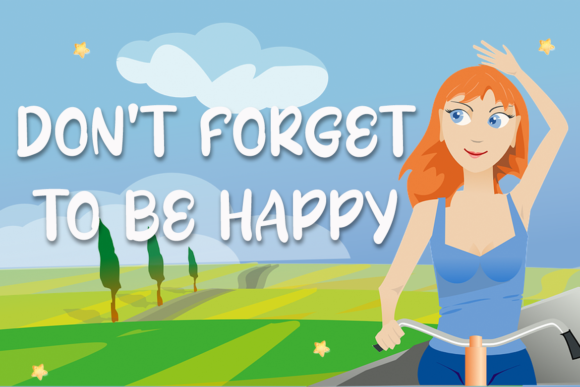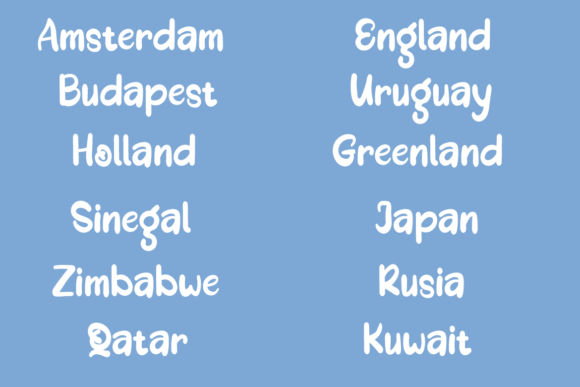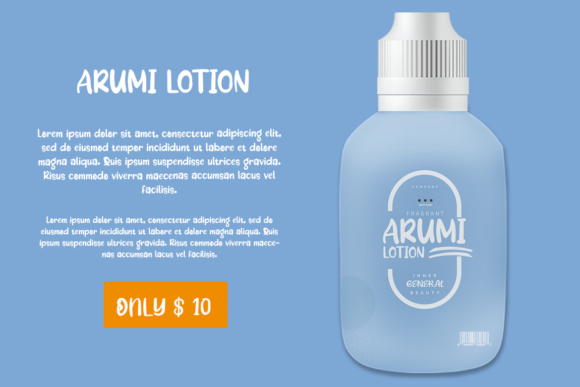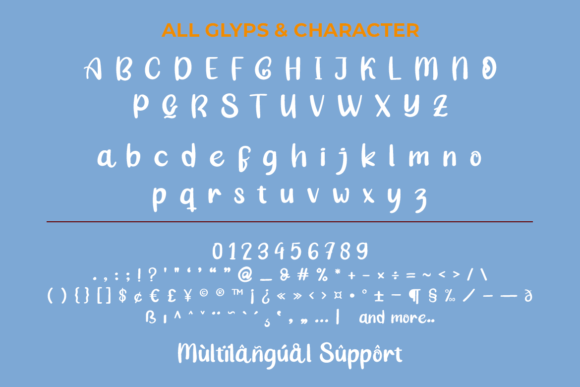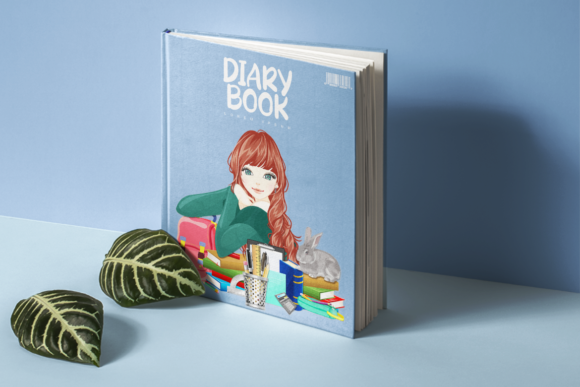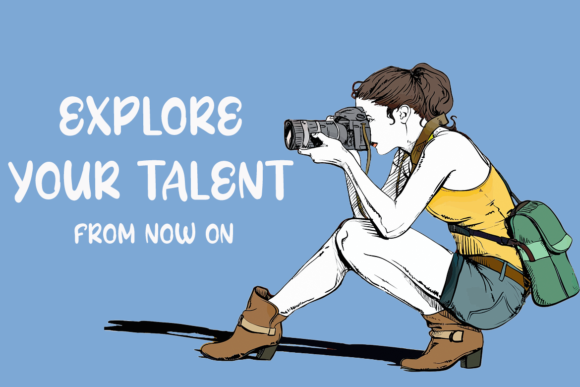
Introducing Arumi Font: The Sweet yet Bold Display Font for Creative Designs
Are you tired of using the same old fonts for your designs? Look no further than Arumi Font, a sweet yet bold display font that’s sure to make your creations stand out. With its natural and quirky style, Arumi is incredibly fitting for a wide range of designs, from playful crafts to bold branding statements.
The Unique Characteristics of Arumi Font
Arumi Font is a display font that exudes a sense of playfulness and charm. Its bold and rounded letters make it perfect for headlines, titles, and other design elements that need to grab attention. The font’s natural and quirky style gives it a unique personality that’s both fun and sophisticated.
One of the key features of Arumi Font is its versatility. It can be used for a wide range of designs, from children’s party invitations to branding materials for businesses. The font’s bold and playful style makes it perfect for designs that need to stand out, while its natural and quirky style gives it a touch of elegance and sophistication.
Why Designers and Crafters Love Arumi Font
Designers and crafters love Arumi Font for its unique combination of sweetness and boldness. The font’s playful style makes it perfect for designs that need to appeal to a younger audience, while its sophisticated style makes it suitable for more mature designs.
How to Use Arumi Font in Your Designs
Arumi Font is incredibly versatile and can be used in a wide range of design applications. Here are a few ideas for using Arumi Font in your designs:
- Headlines and Titles: Use Arumi Font to create bold and eye-catching headlines and titles that grab attention.
- Branding Materials: Use Arumi Font to create unique and memorable branding materials, such as logos, business cards, and letterheads.
- Invitations and Party Decor: Use Arumi Font to create playful and fun invitations and party decor, such as birthday party invitations and DIY crafts.
- Signage and Posters: Use Arumi Font to create eye-catching signage and posters that stand out.
Tips and Tricks for Getting the Most Out of Arumi Font
Here are a few tips and tricks for getting the most out of Arumi Font:
- Experiment with Different Sizes: Arumi Font looks great at a range of sizes, from small and delicate to large and bold. Experiment with different sizes to find the one that works best for your design.
- Pair with Other Fonts: Arumi Font pairs well with a range of other fonts, from serif and sans serif fonts to script and handwritten fonts. Experiment with different font combinations to find the one that works best for your design.
- Use in Combination with Images: Arumi Font looks great in combination with images, particularly illustrations and photographs with a natural and playful style.
Arumi Font is a sweet yet bold display font that’s perfect for designers and crafters who want to add a touch of playfulness and charm to their designs. With its natural and quirky style, Arumi Font is incredibly versatile and can be used in a wide range of design applications. Whether you’re creating headlines and titles, branding materials, invitations and party decor, or signage and posters, Arumi Font is sure to make your designs stand out.
So why not give Arumi Font a try? With its unique combination of sweetness and boldness, it’s the perfect font for designers and crafters who want to add a touch of personality to their designs.